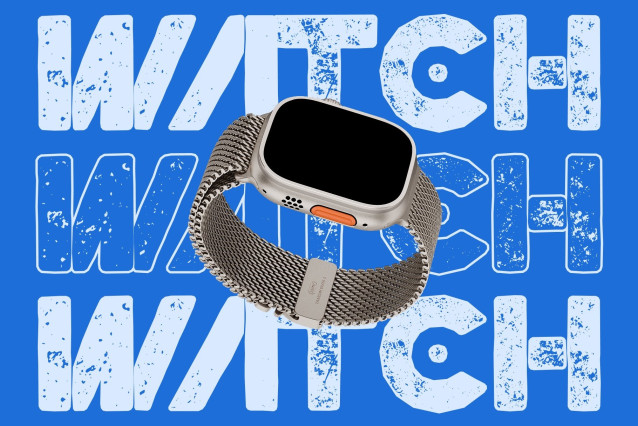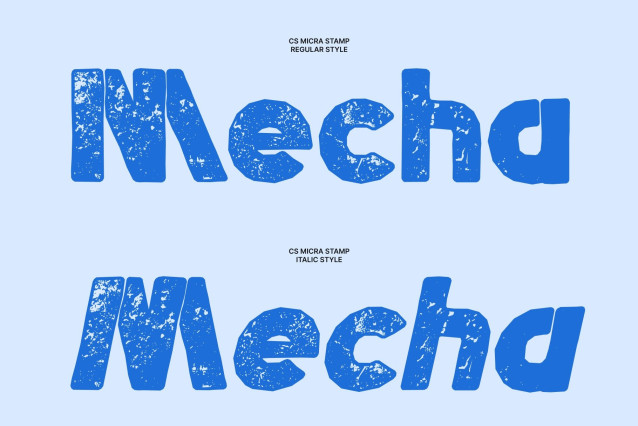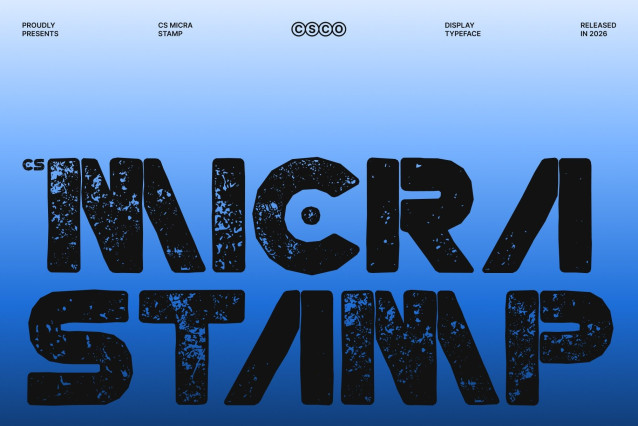
CS Micra Stamp – Display Typeface: Where Futuristic Precision Meets Vintage Texture
Techno Geometry with Sharp Modern Edge
This is a futuristic display typeface that blends precise techno geometry with sharp, angular edges. Its structured forms and clean cuts create a sleek, high-tech appearance that feels engineered for digital environments. Each letter is designed with clarity and precision, delivering a bold visual presence that captures the essence of modern innovation.
Bold Stamp Texture with Retro Character
Enhanced with a bold stamp effect, this font introduces a contrasting vintage character that adds depth and personality. The textured, slightly worn finish evokes an old printed aesthetic, creating a unique fusion between futuristic design and nostalgic imperfection.